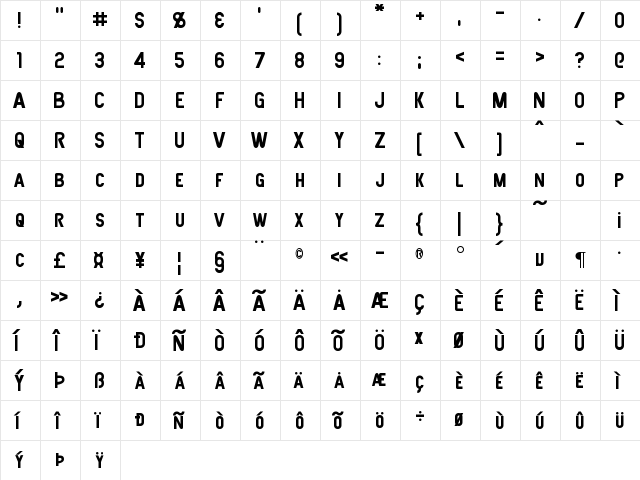
Joystick Regular
| Designer | Neale Davidson |
Design Context for Joystick Typeface
Joystick takes a measured approach to typography — its balanced proportions and neutral character make it a reliable workhorse for both digital and print work.